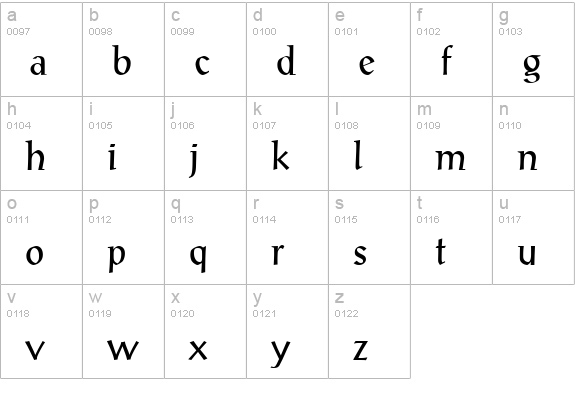
12 Post Antiqua Roman 05554 Font Details
12 Post Antiqua Roman 05554 is a classic serif font that exudes elegance and sophistication. Its timeless design makes it perfect for a wide range of projects, from formal invitations to editorial layouts. With its clean lines and balanced proportions, this font is both easy to read and visually appealing. What sets 12 Post Antiqua Roman 05554 apart is its versatility - it can be used for both headlines and body text with equal impact. Whether you're designing a print publication or a digital project, this font will elevate your work to a new level of professionalism. And the best part? 12 Post Antiqua Roman 05554 is completely free to download at FontsMarket.com. This means that you can access this high-quality font without having to spend a dime. So why wait? Add 12 Post Antiqua Roman 05554 to your font library today and start creating beautiful designs with ease.